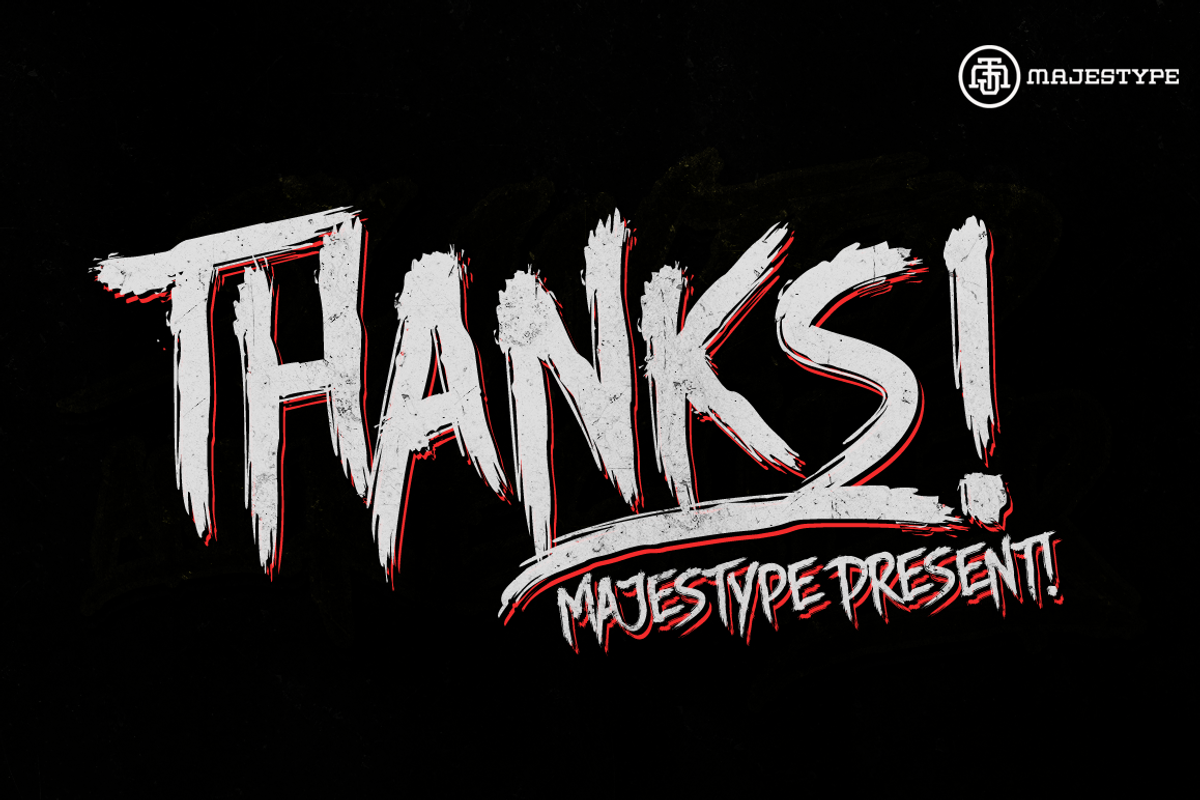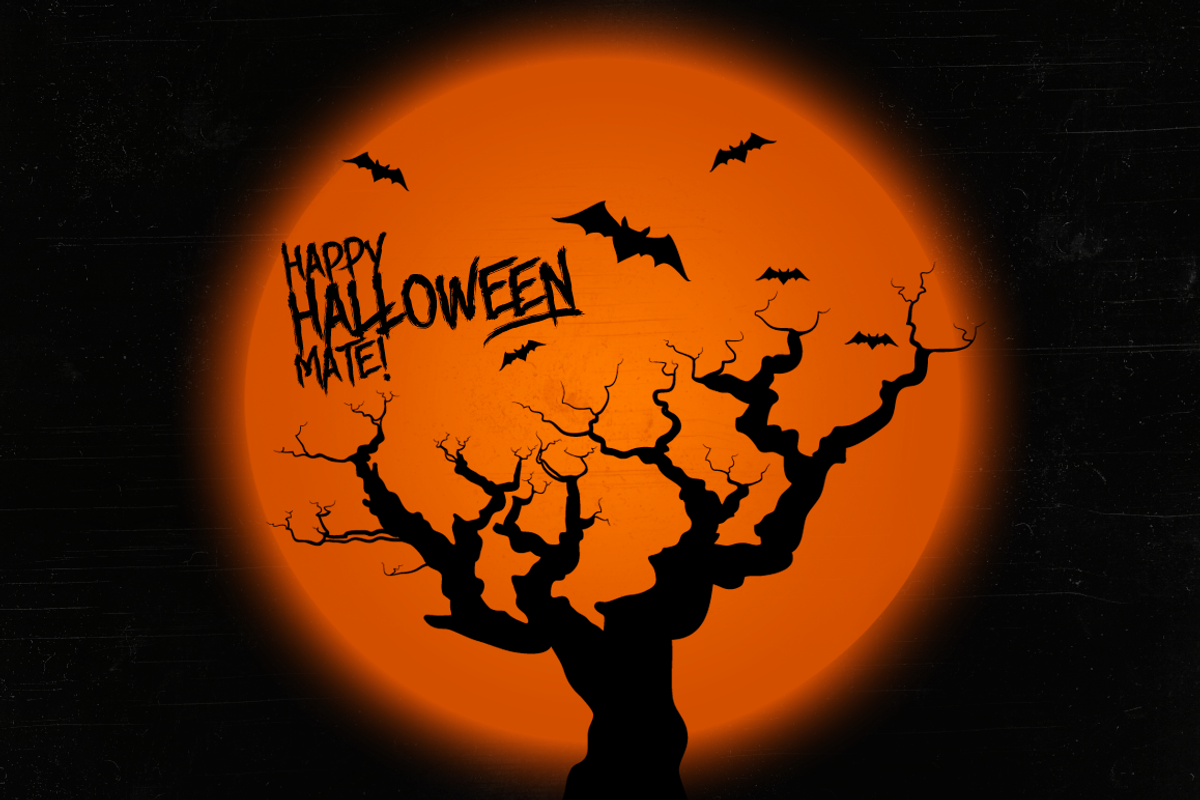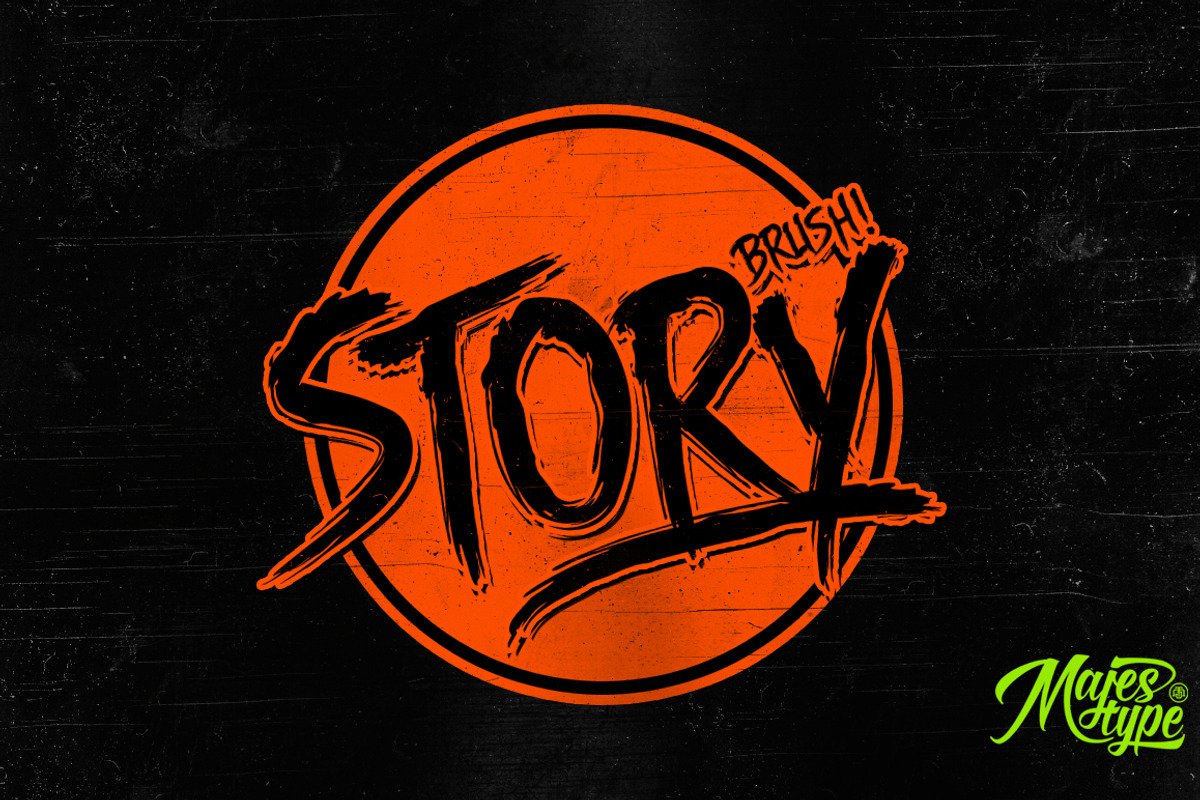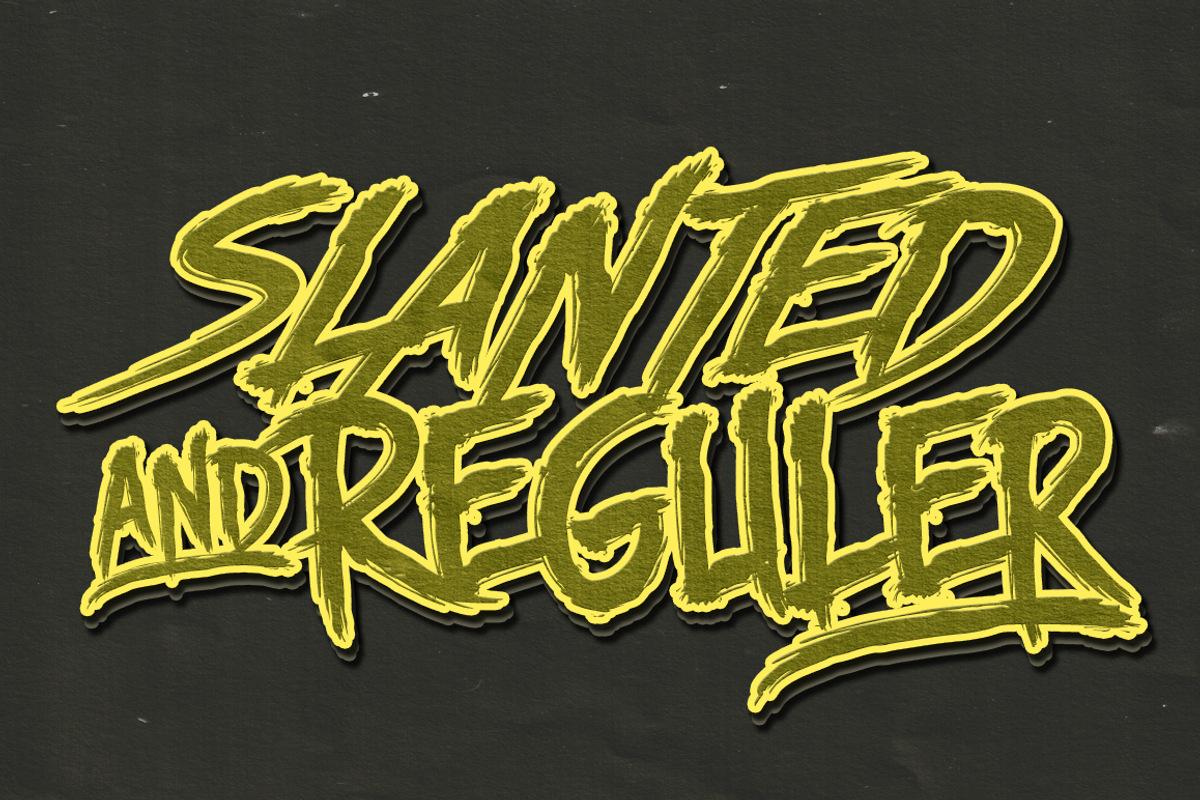
Story Brush - Horror Halloween Font
Story Brush - Horror Halloween Font by dexsarharryfonts is a font selected for branding, posters, packaging, typography.
- Story Brush is a highly detailed brush font that includes over 240 glyphs and comes in two versions: Regular and Slanted.
Why Story Brush - Horror Halloween Font is worth a look
Story Brush - Horror Halloween Font by dexsarharryfonts fits naturally into Branding, posters, packaging, typography.